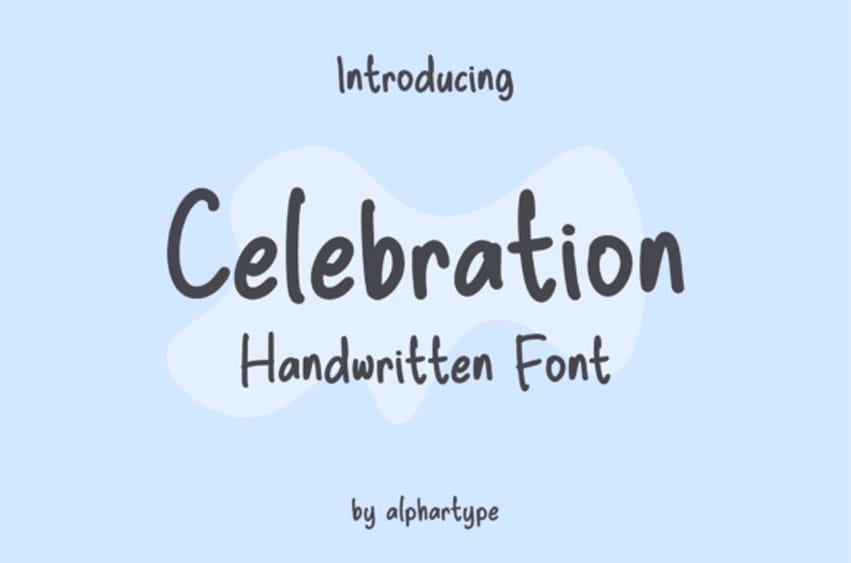
Celebration Font is a fun and friendly handwritten font.
Whether you’re using it for crafts, digital designs, or greeting card making, this font has the potential to become your favorite go-to font, no matter the occasion!